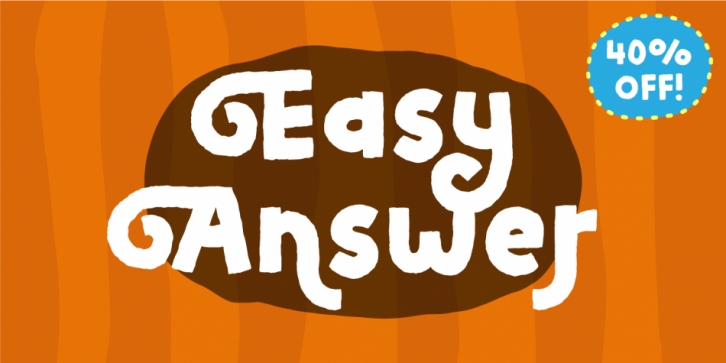
Designed by Jakob Fischer, Easy Answer is a display and hand display font family. This typeface has two styles and was published by Bogstav.
Is there such a thing as an easy answer, or is it just because you know the question?
Anyway, as a kindergarten teacher I like to make these quizzes with the kids. The object of the game is not to answer right, but to get a feeling of knowing a lot. I thought of these questions as being logical and really easy, but I also found out that it is a great way for the kids to remember and recall their knowledge!